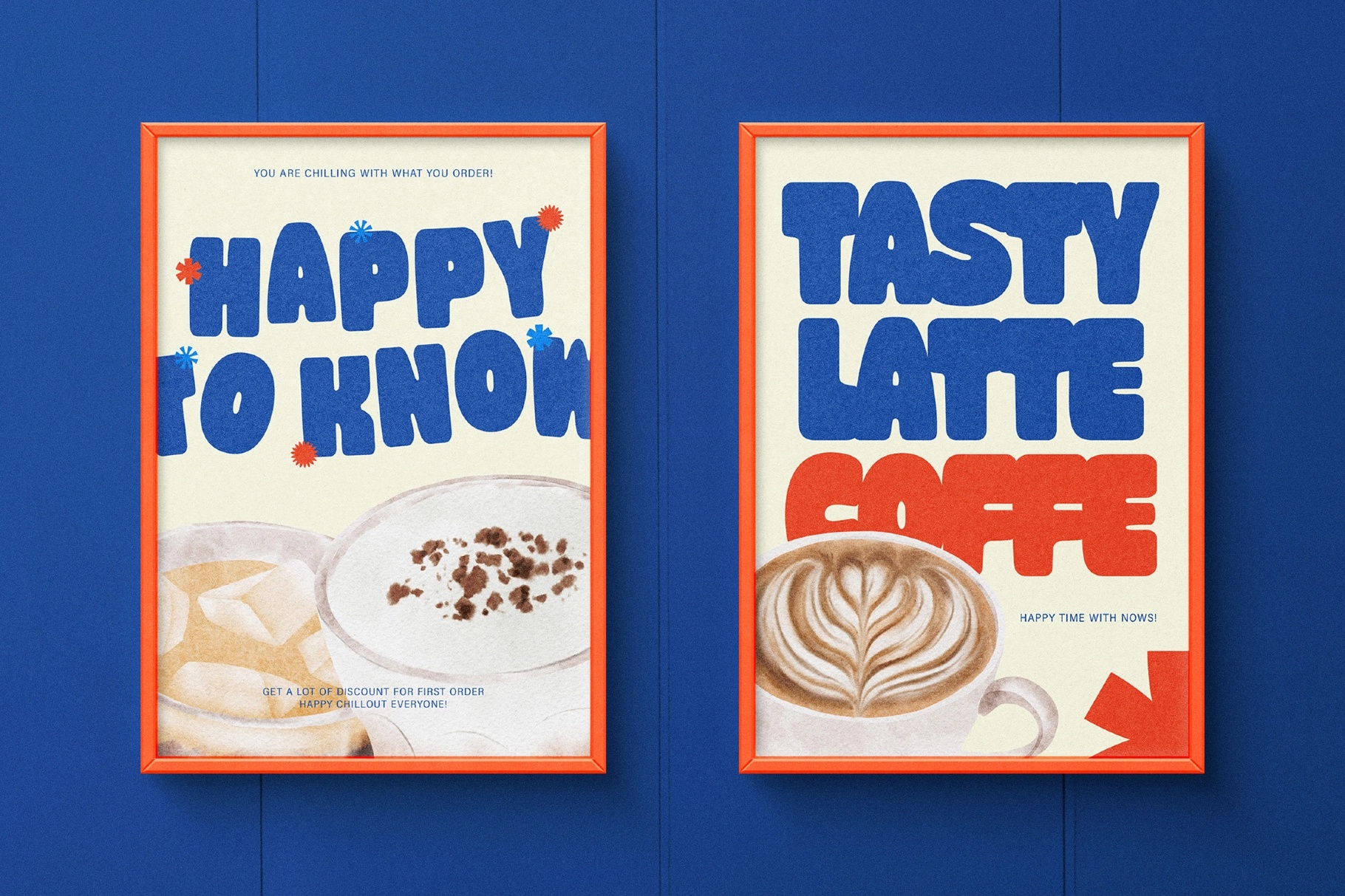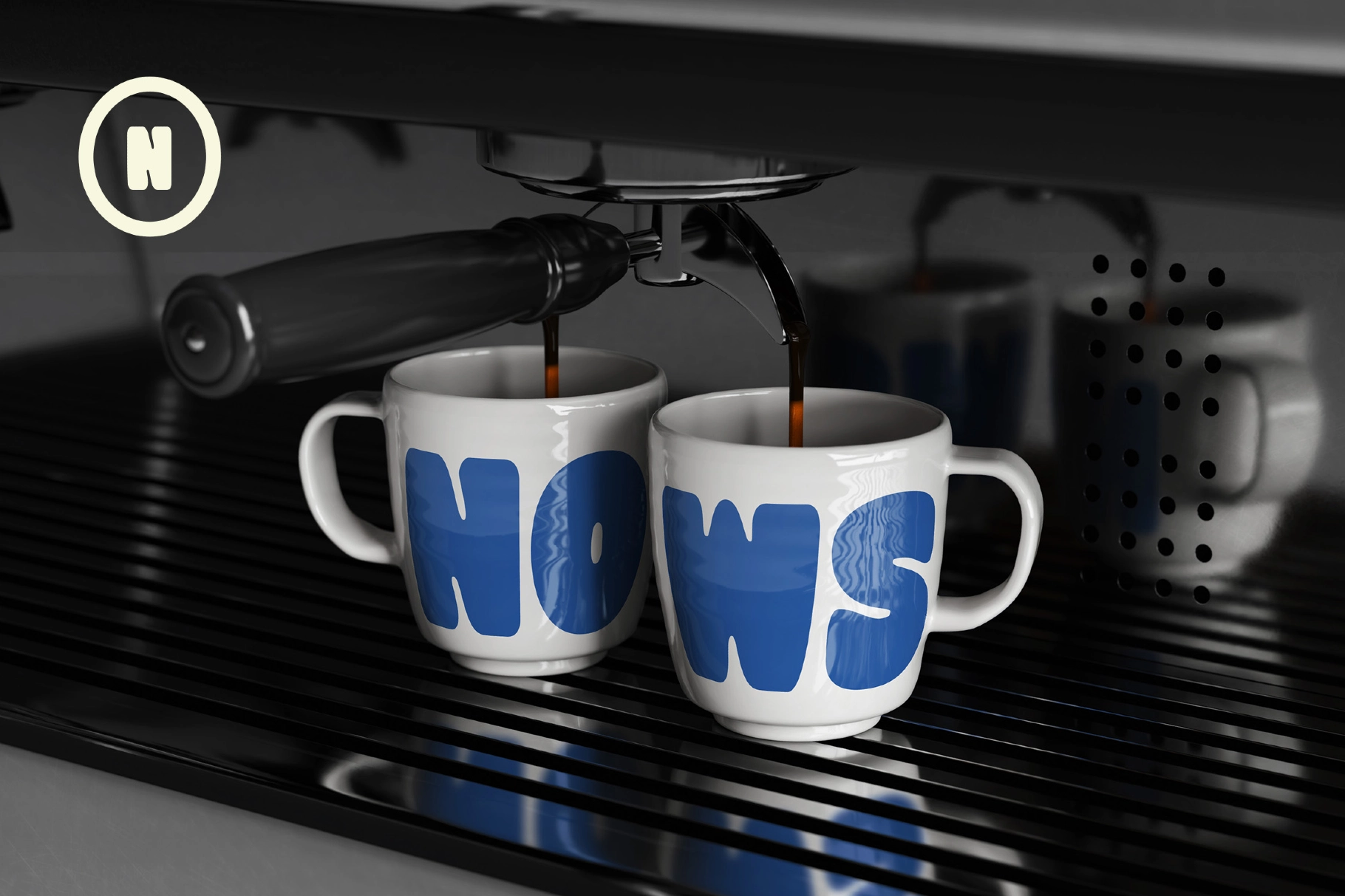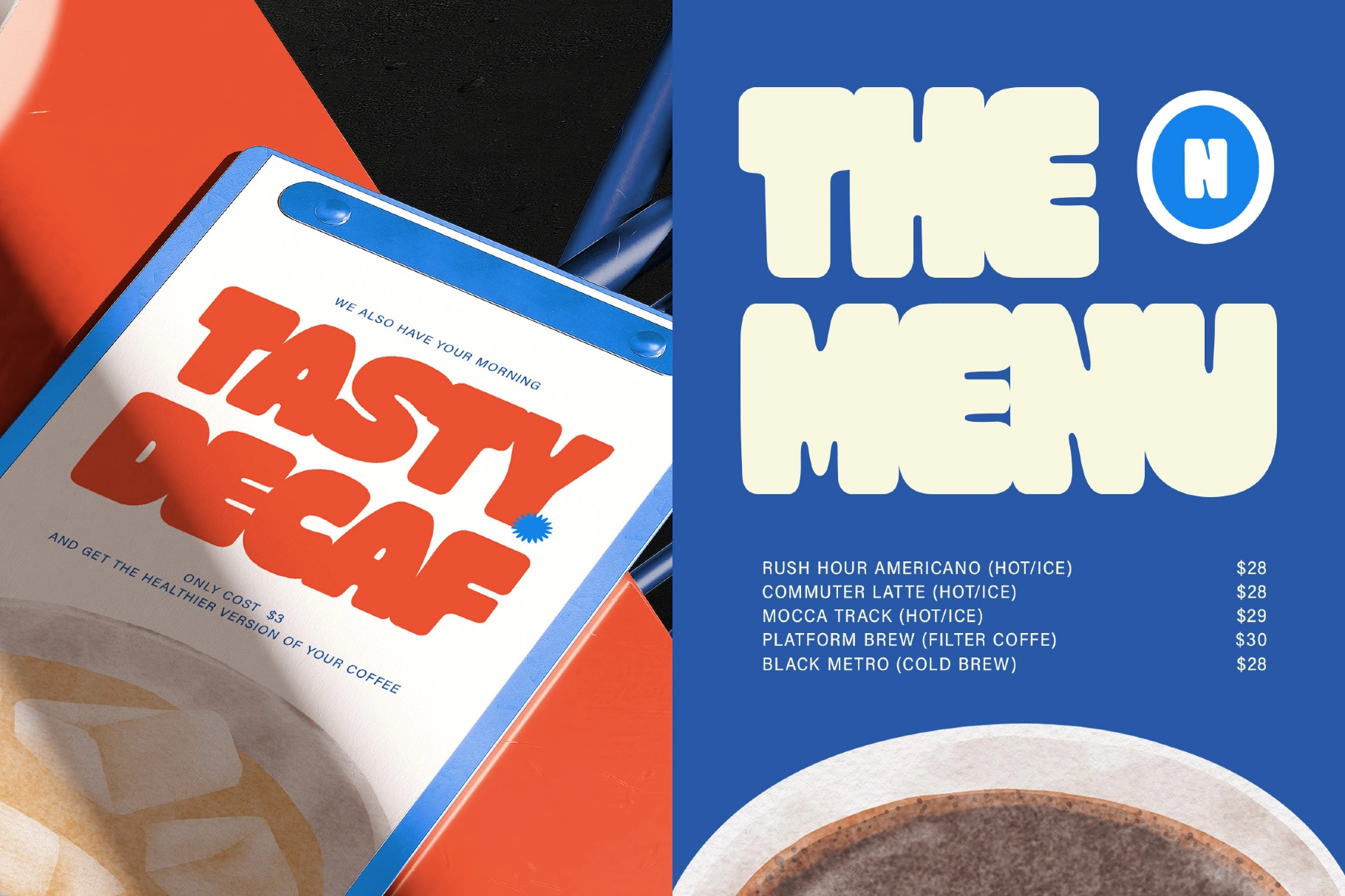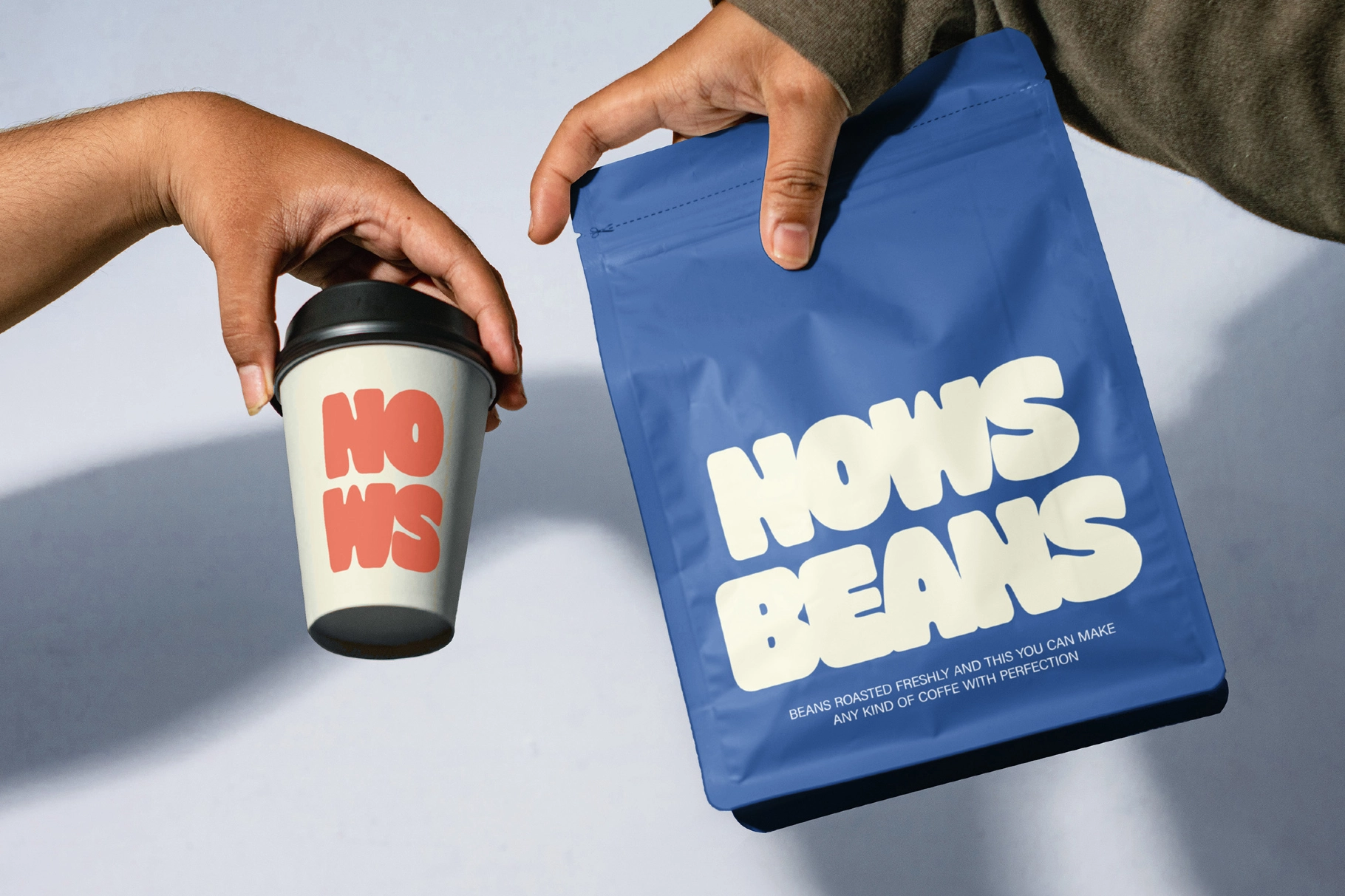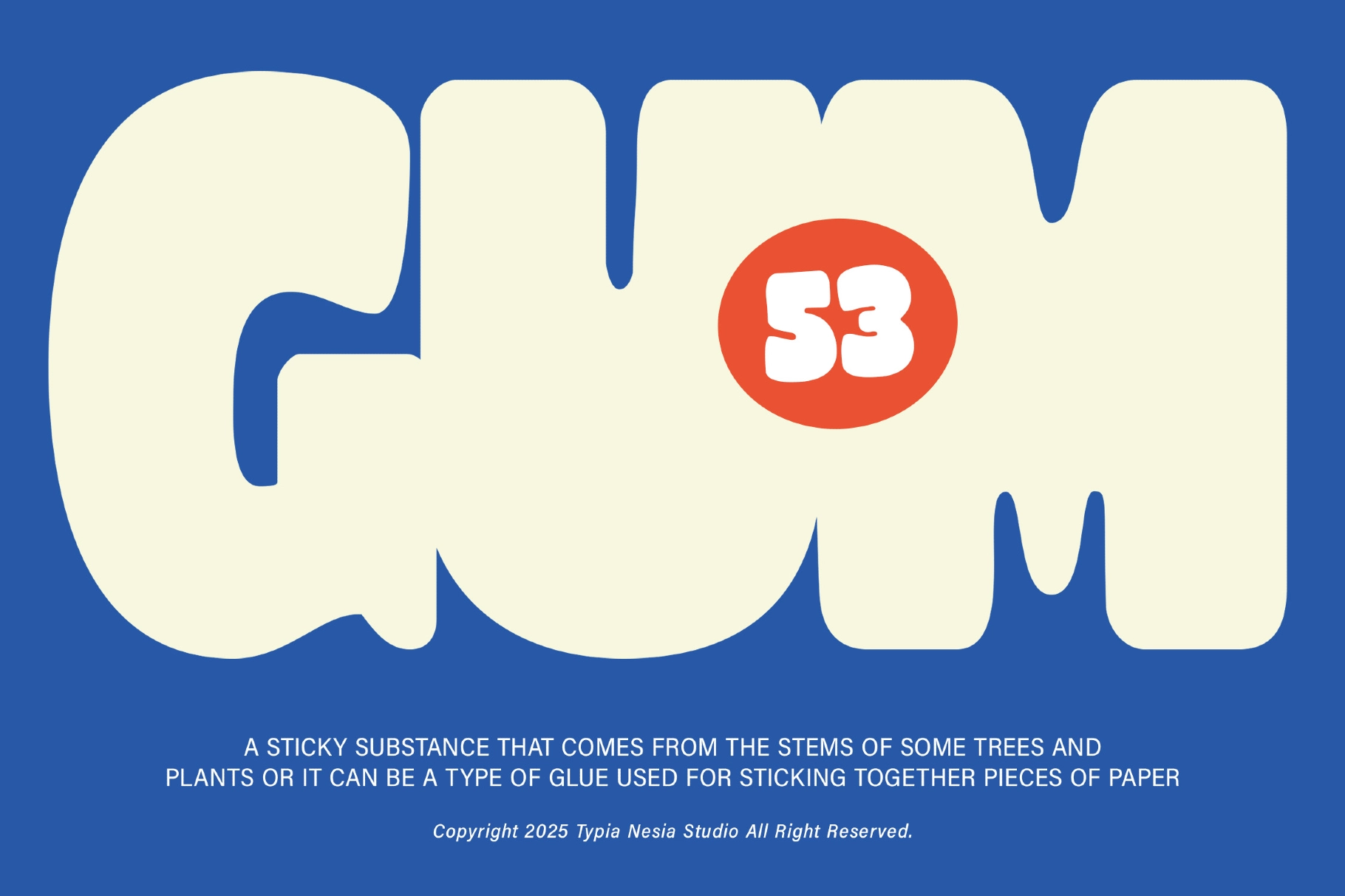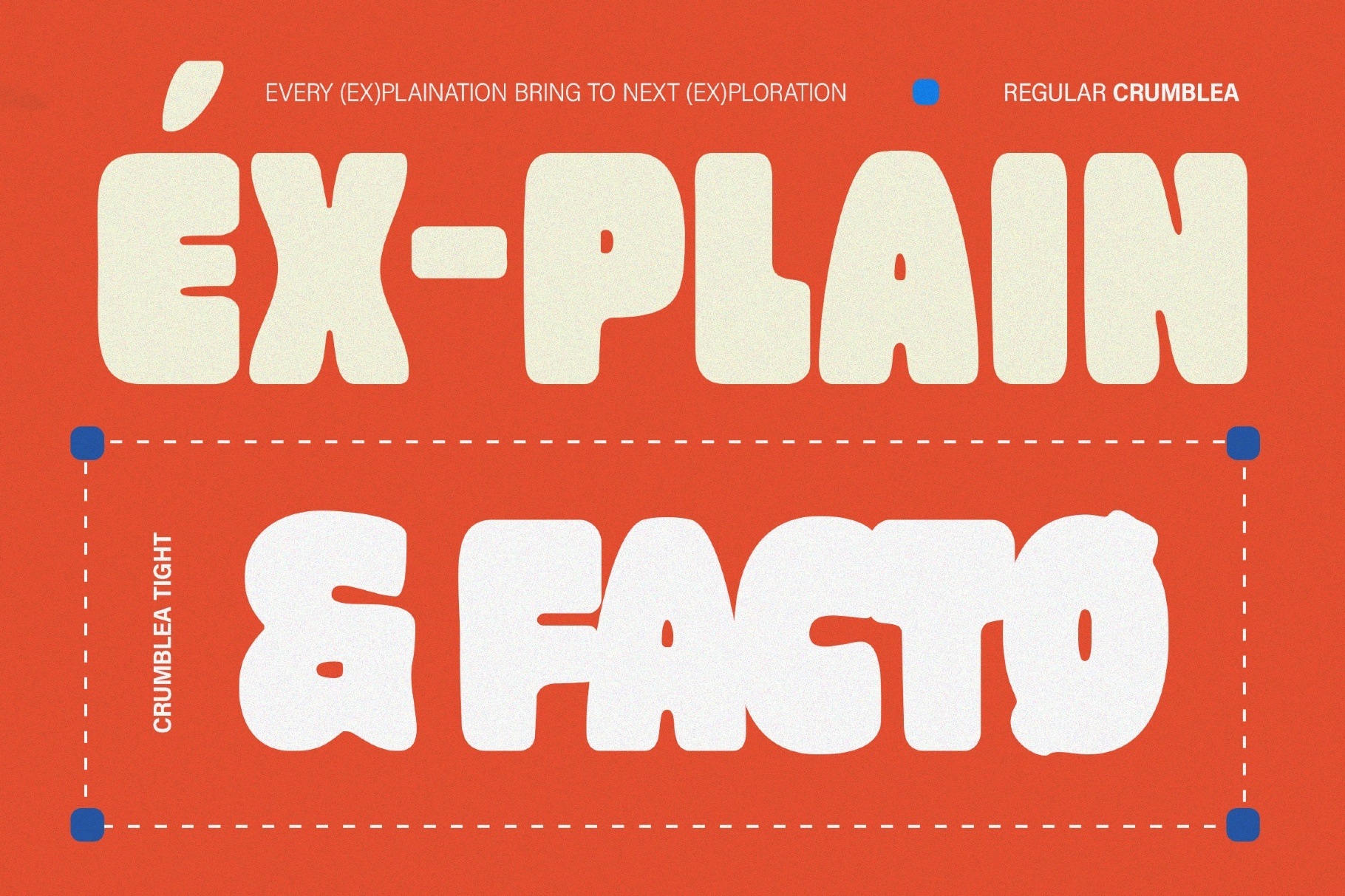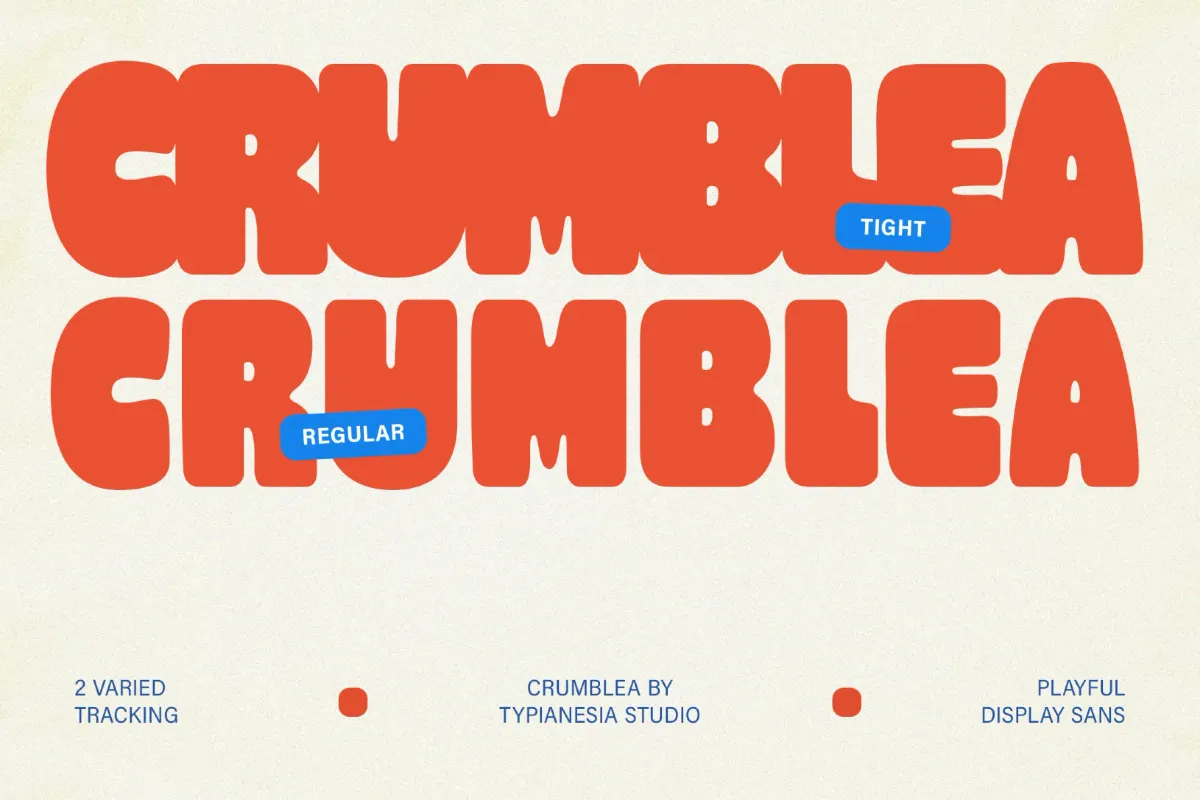
Crumblea - Modern Rounded Bold Sans
Crumblea offers a striking blend of boldness and warmth that is perfect for any creative project. Its rounded edges give this sans serif font a playful character, ideal for grabbing attention with high-impact headlines and memorable logo designs. Particularly effective for branding and packaging, Crumblea shines in sectors like food, children's products, cafes, and bakeries. Its ability to convey a modern yet approachable style makes it a versatile choice for diverse applications.
• Bold and chunky design ideal for standout graphics
• Friendly rounded edges for a warm, playful personality
• Perfect for high-impact headlines and logo designs
• Suited for branding in the food, children’s, and cafe markets